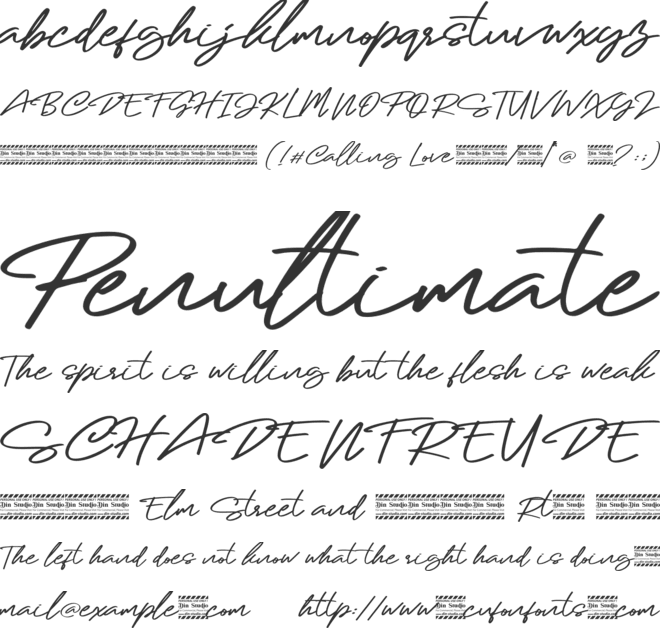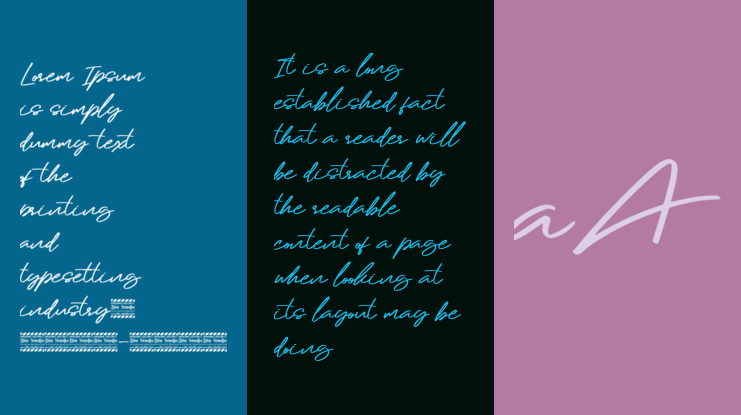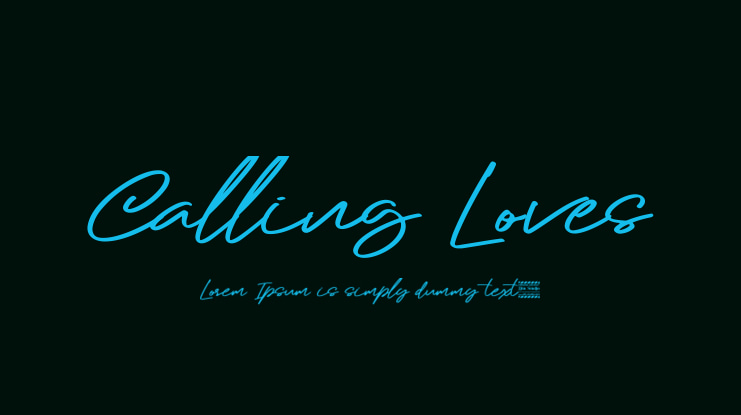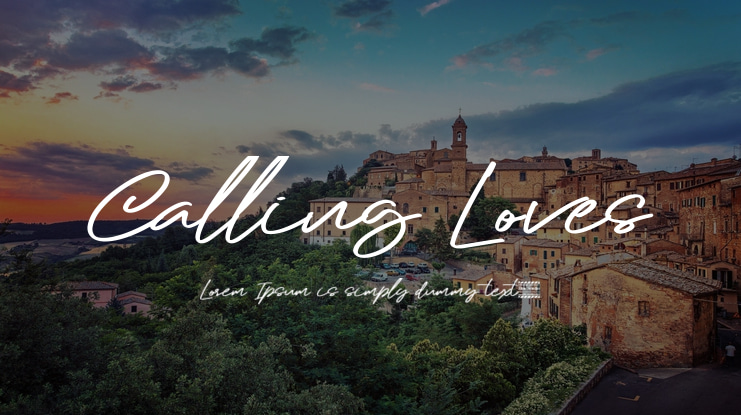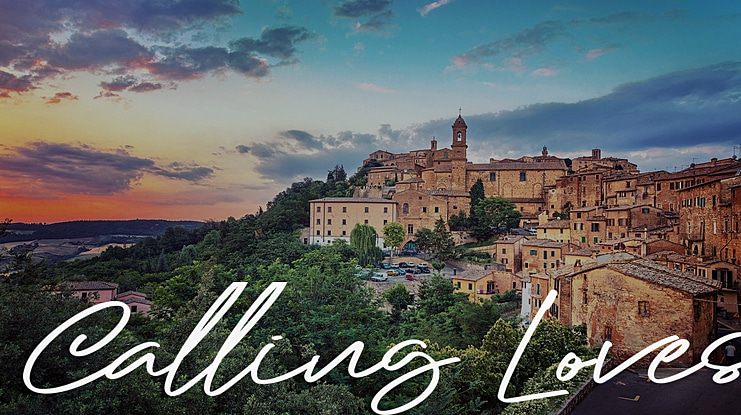
Say hello to Calling Loves, Calling Loves is a beautiful font duo, designed with modern style. The combination of script and modern serif will make your design more beautiful. It’s suitable for branding, web design, personal signature (logo) and many other modern designs.